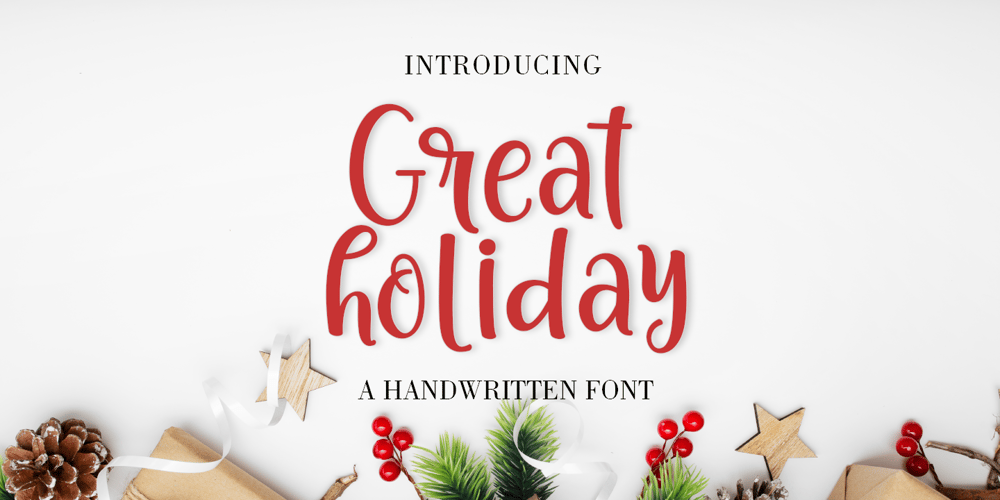
Great holiday
Great holiday font
Great holiday Font Family was designed by Kamaruddin Kamaruddin, Amar Lettering and published by Amarlettering. Great holiday contains 1 styles and family package options. Great Holiday is a beautiful and refined script font. It has a classy, elegant and modern look that can be used for logos, branding, invitations, stationery, wedding designs, social media posts, and much more!